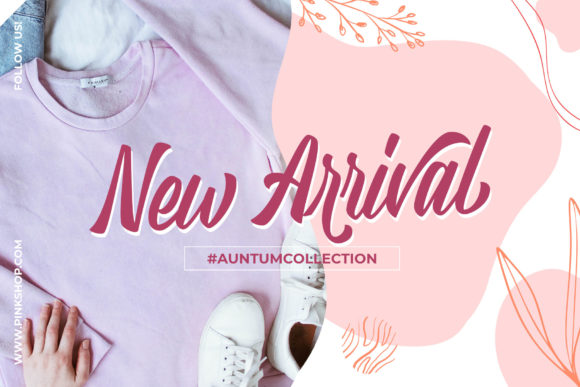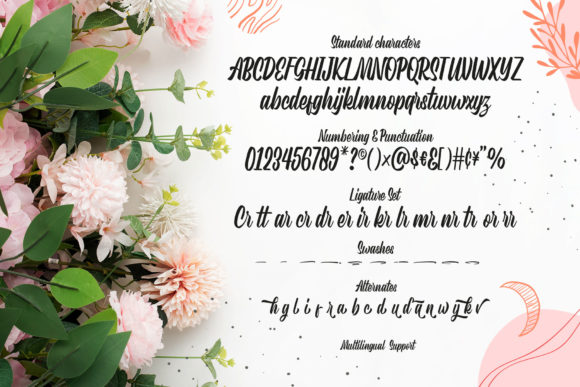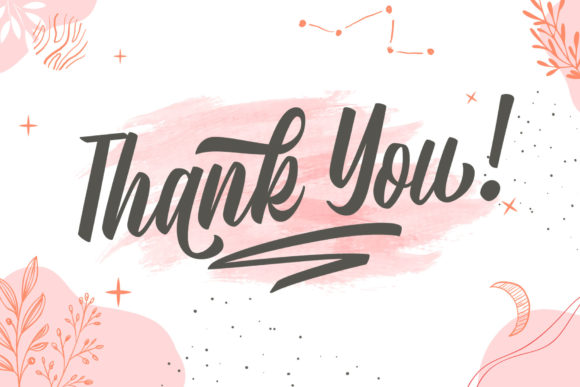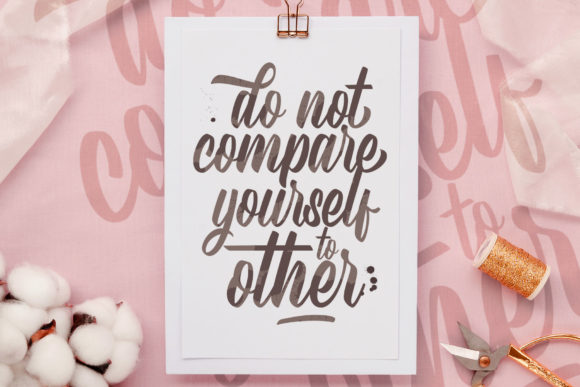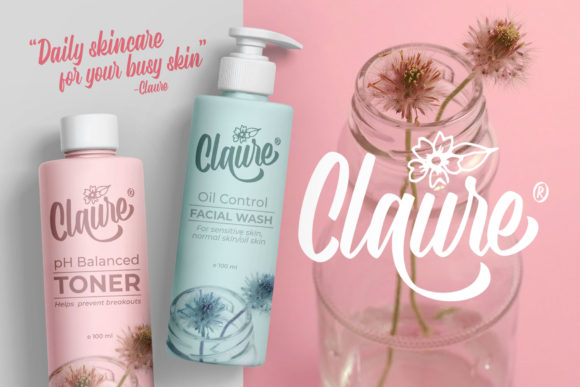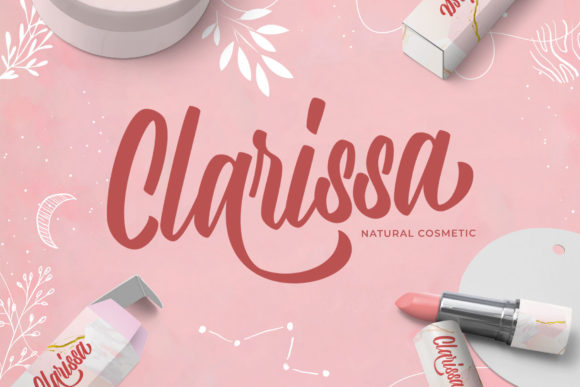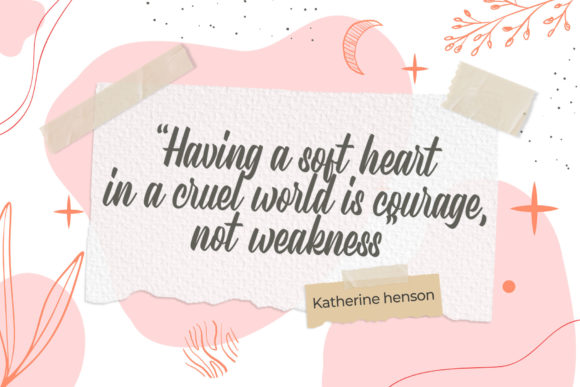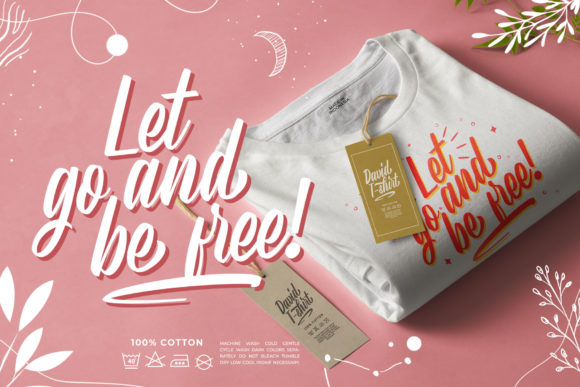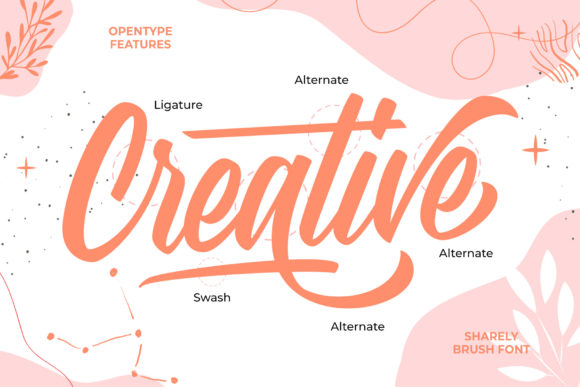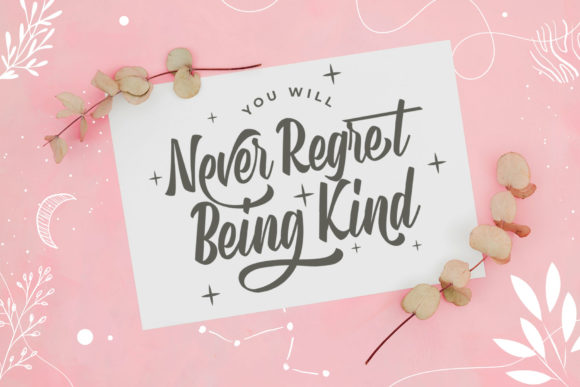
Sharely Font
About Sharely Font
“Sharely” sounds like a beautiful and versatile handwritten font that can add a touch of elegance and grace to a wide range of creative projects. Its delicate and flowing style makes it the perfect choice for crafting stunning wedding invitations, stationary art, social media posts, and much more.
By using “Sharely” in your designs, you can create a sense of sophistication and beauty. Its handcrafted look adds a personal and heartfelt touch to your creations, making them stand out and leaving a lasting impression on your audience.
This font’s versatility allows it to adapt to various design styles and themes. Whether you’re working on romantic and dreamy wedding invitations or creating eye-catching social media posts, “Sharely” can effortlessly enhance the aesthetics of your projects.
The PUA encoding of “Sharely” is a valuable feature that provides easy access to all the glyphs and swashes it offers. This gives you the creative freedom to explore various decorative elements, ligatures, and alternate characters, allowing you to customize the typography according to your creative vision with ease.
With “Sharely,” you can experiment with different font sizes, colors, and layouts to create visually stunning and engaging designs. Its delicate and flowing nature can add a touch of charm to headlines, subheadings, or any other text element.
In conclusion, “Sharely” is a delicate and flowing handwritten font that can elevate your creative projects to a new level of beauty and versatility. Its PUA encoding makes it a user-friendly choice, granting you access to a wide range of glyphs and swashes. Embrace the grace of “Sharely” and let it be the font that brings a touch of elegance to your wedding invitations, stationary art, social media posts, and any other design that seeks to captivate and inspire.